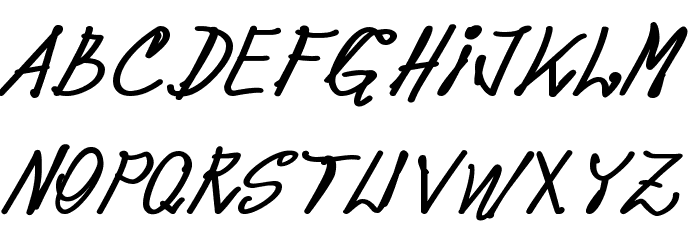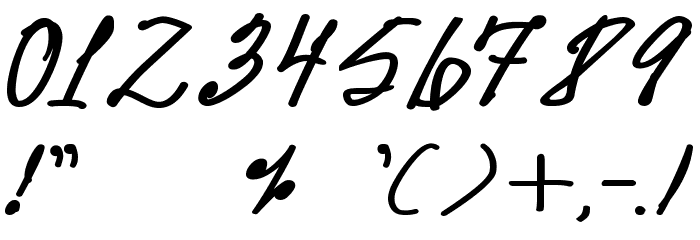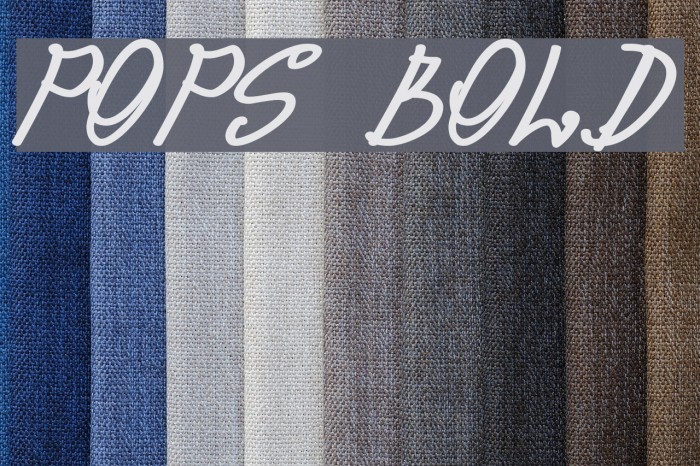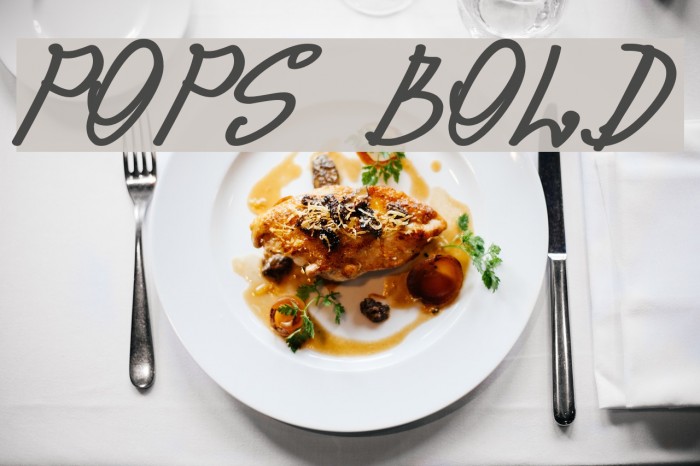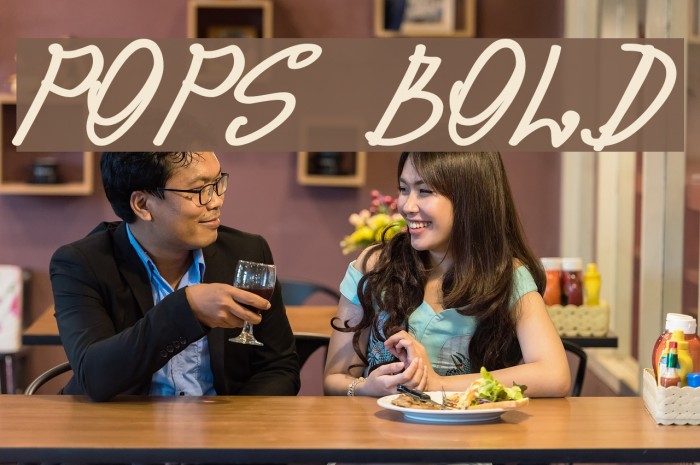
pops Bold Font
This font features a bold, handwritten style that exudes a casual yet confident personality. The letters are slightly slanted, giving a dynamic and fluid appearance. Each character is crafted with a consistent stroke width, contributing to a harmonious and cohesive look. The uppercase and lowercase letters maintain a uniform height, enhancing readability while preserving the font's playful nature. The numerals and special characters are designed to match the overall aesthetic, ensuring versatility across various applications. This font is ideal for projects that require a personal touch, such as invitations, greeting cards, or branding materials.
A bold, handwritten font with a casual and dynamic style.
- Proposed Projects: Ideal for invitations, greeting cards, branding, and personal projects.
- Overall Style: Casual, Playful
- Use Case: Headlines, Logos, Invitations